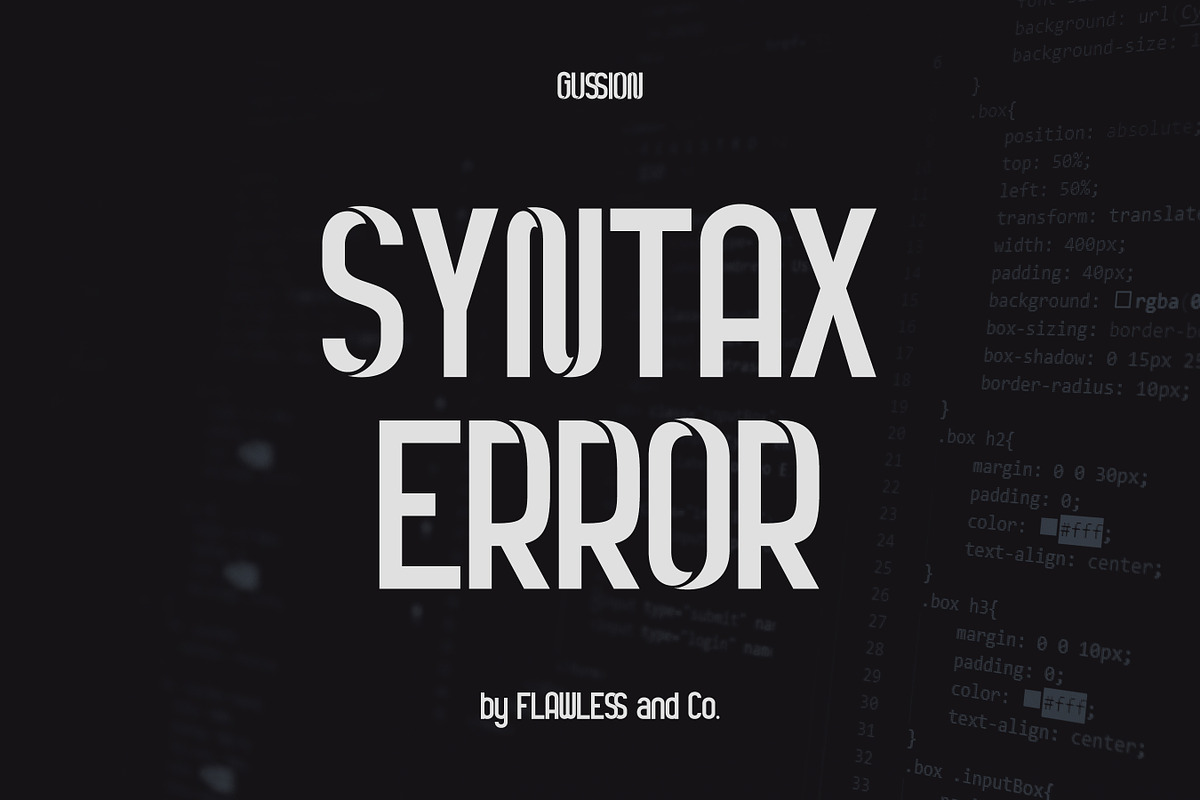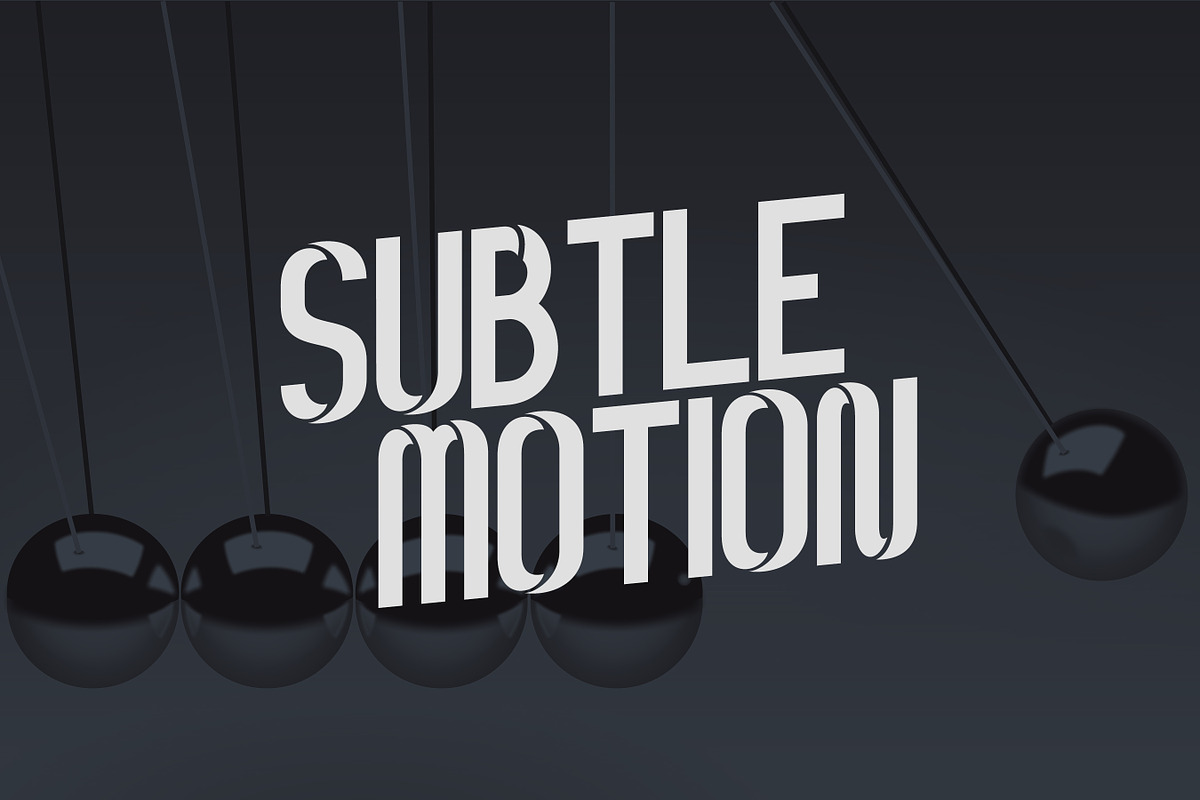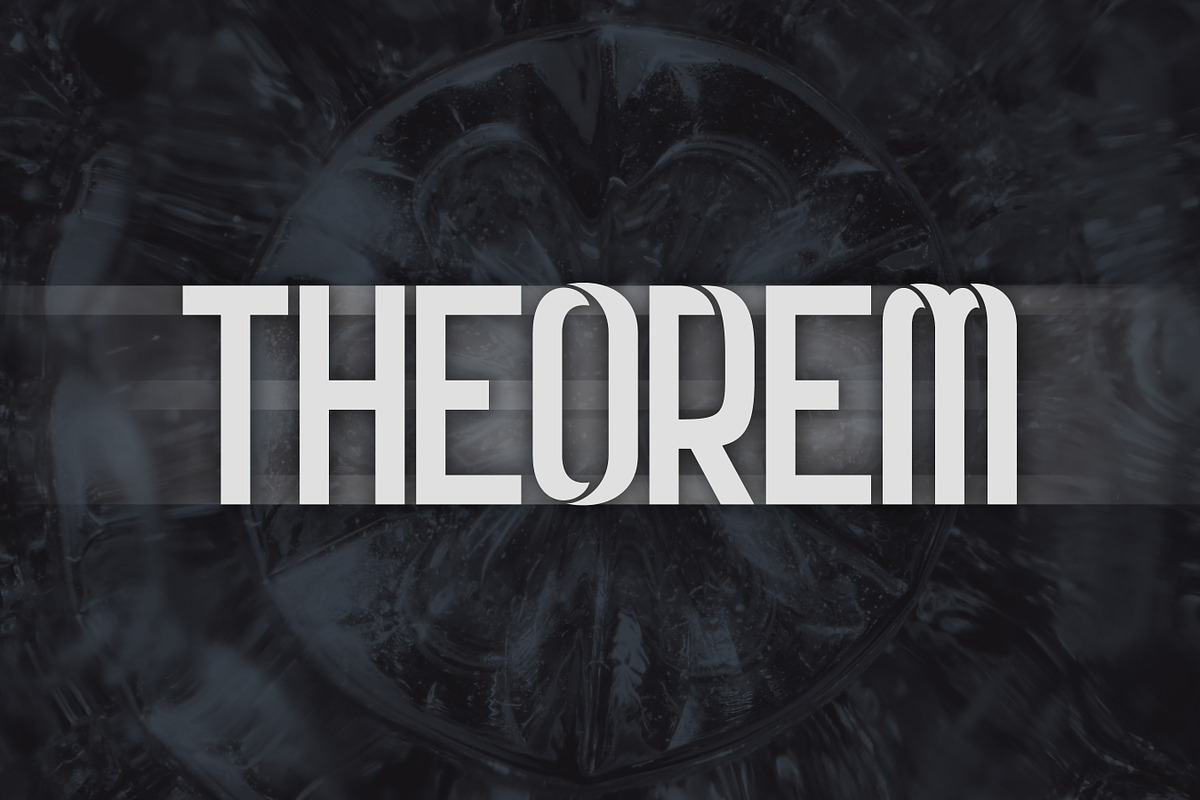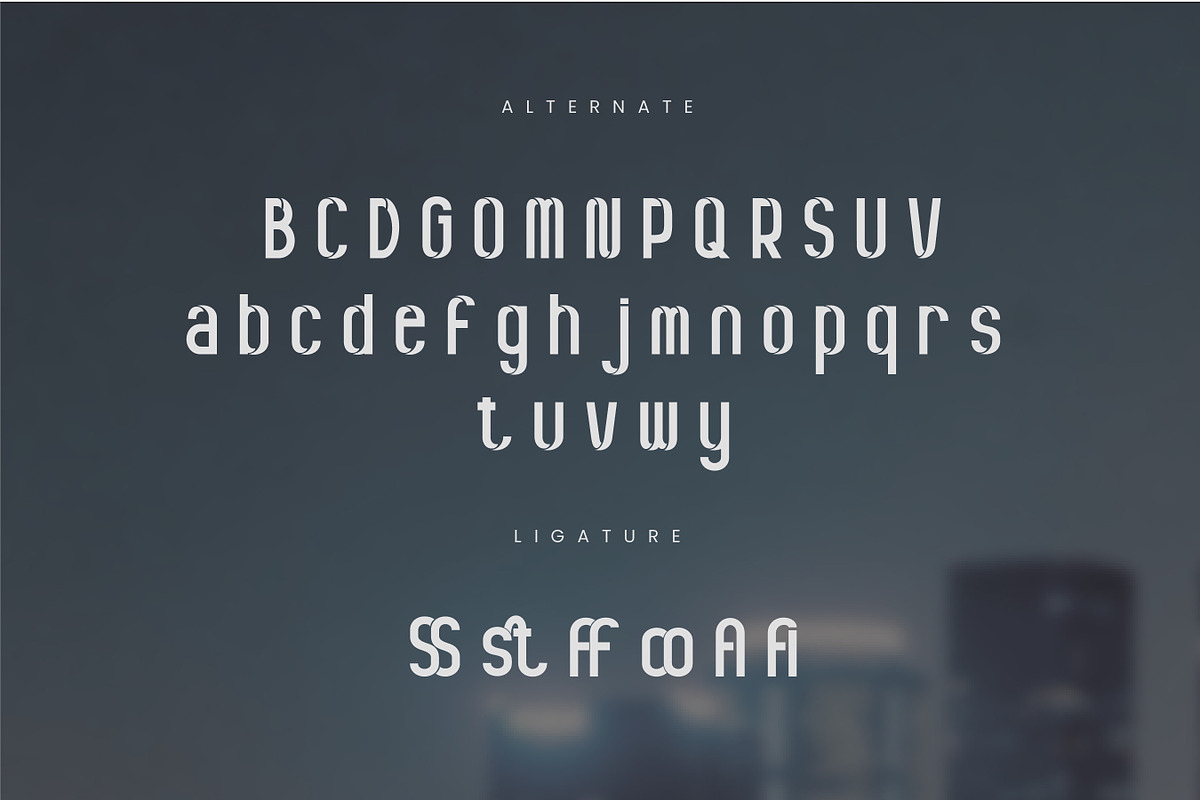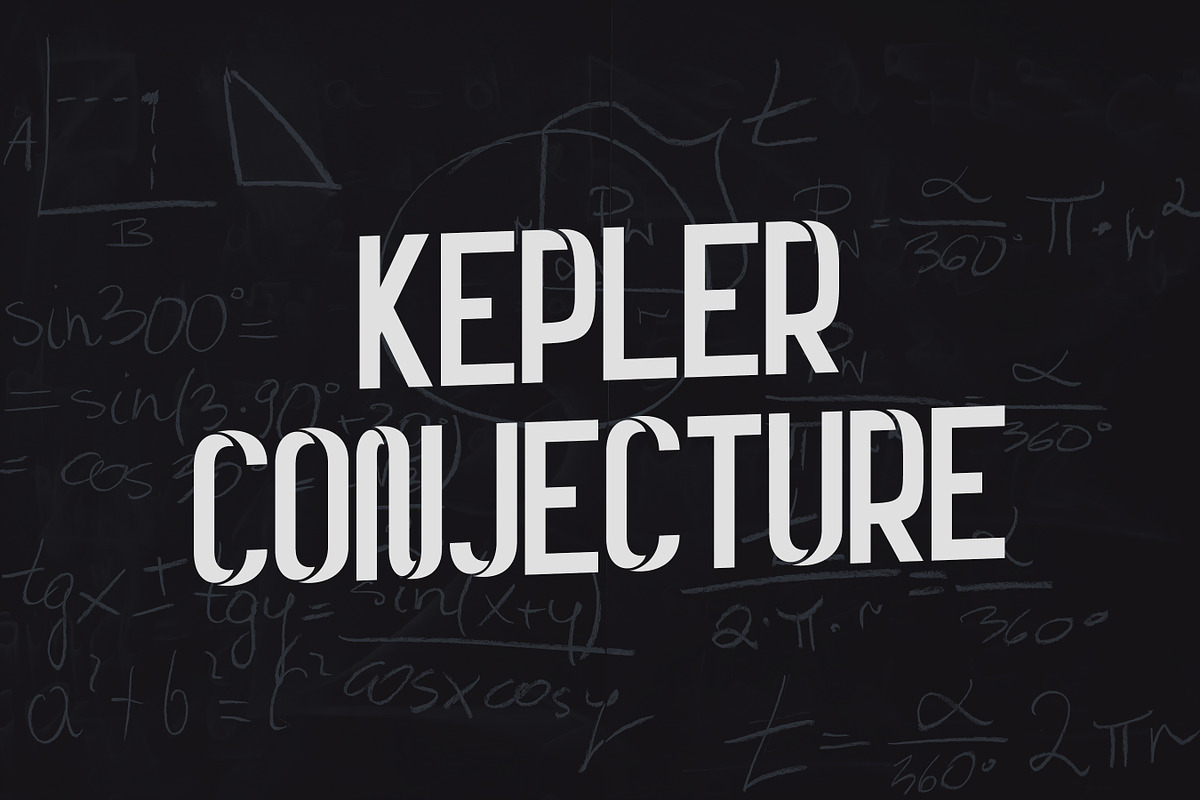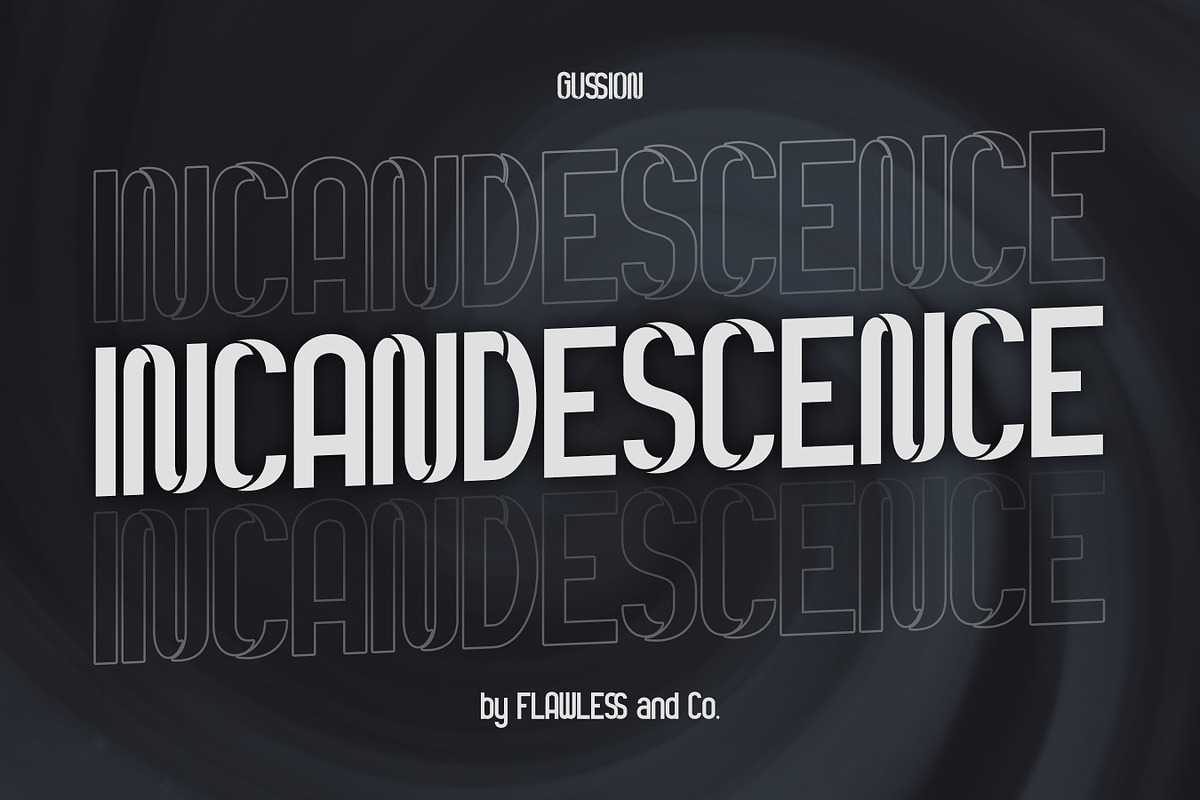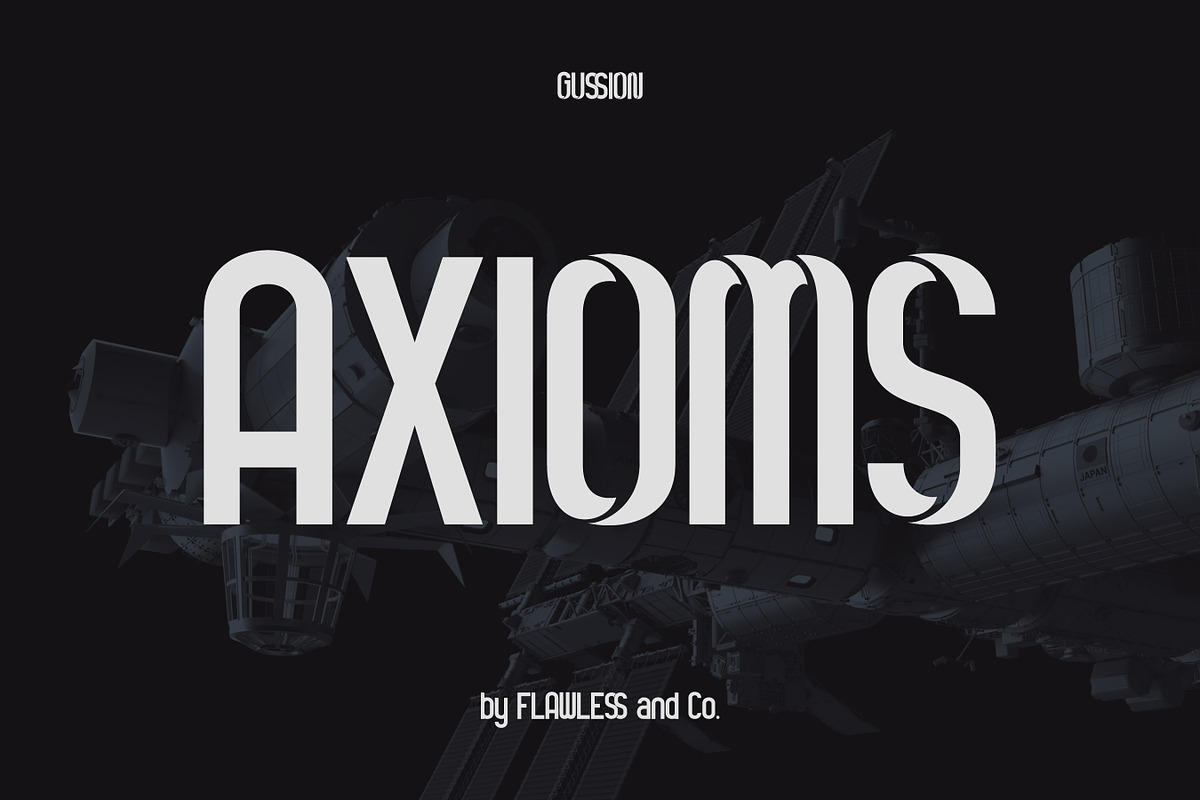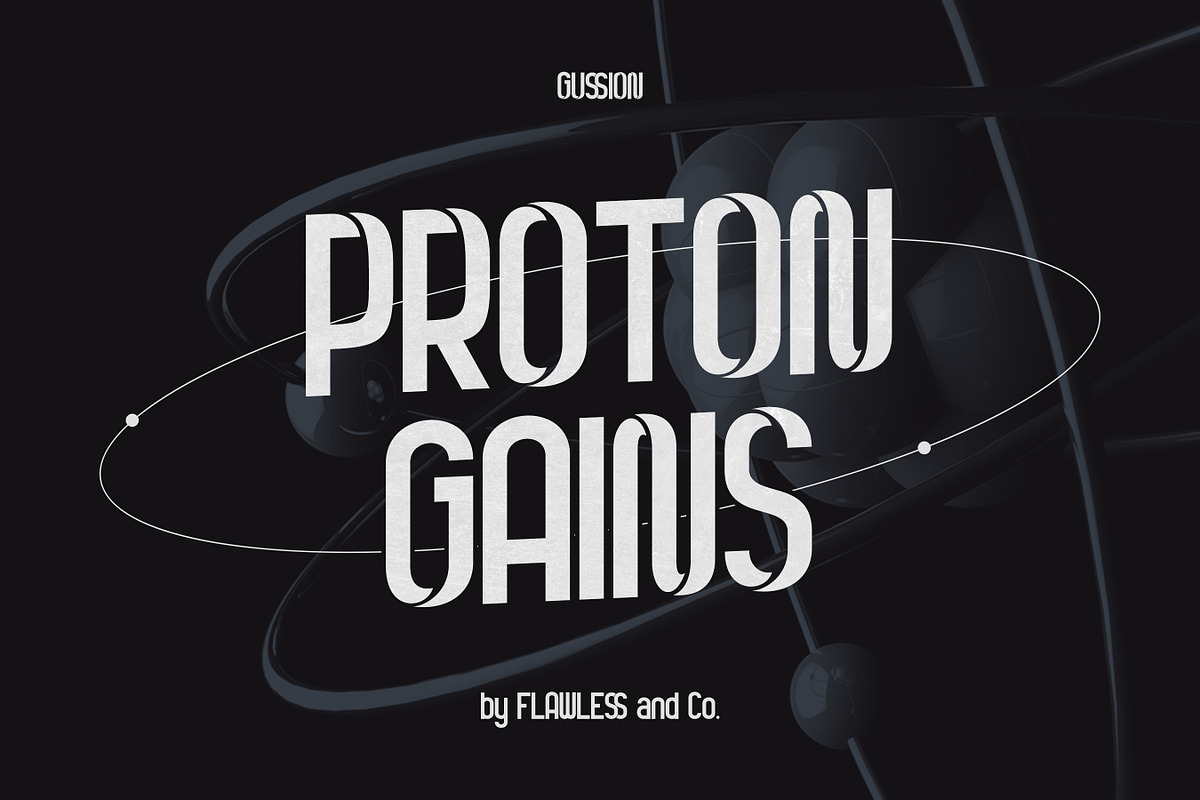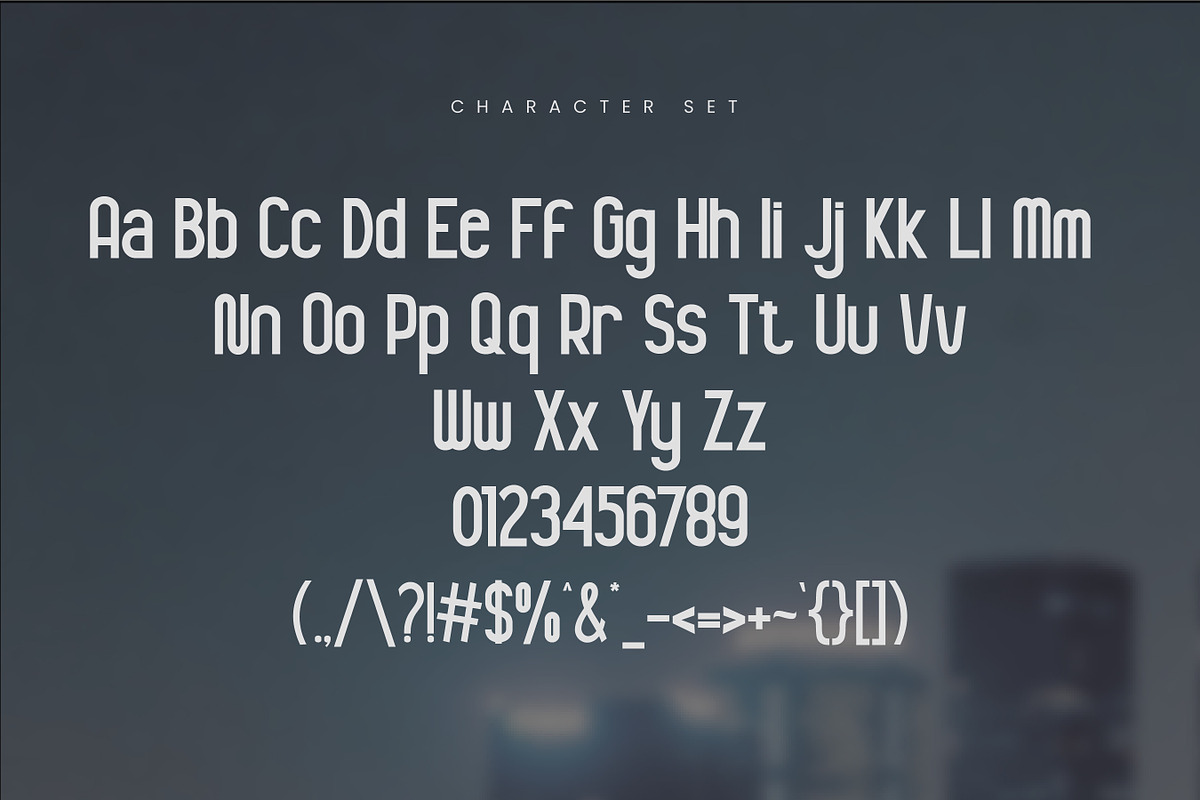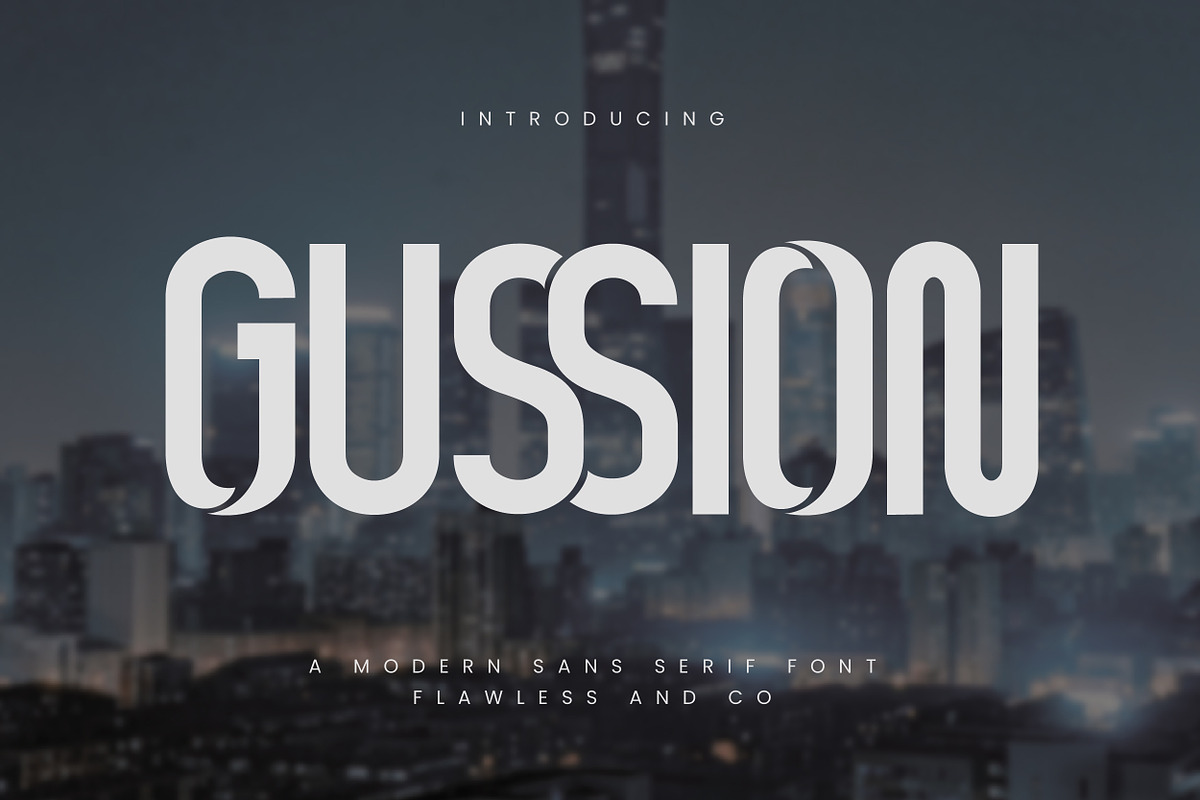
Gussion - Modern Elegant Sans Serif
Introducing "Gussion" - A Modern Sans Serif Font. Gussion is a contemporary sans serif font that effortlessly combines modern aesthetics with clean simplicity. Its sleek lines and balanced proportions make it an excellent choice for a wide range of design projects, from minimalist branding to editorial layouts and beyond. With Gussion, your designs will exude a sense of modernity and clarity that captivates your audience.
Multilingual Uppercase alphabet A-Z Lowercase alphabet a-z Alternate Character Numbers 0-9 Some punctuation